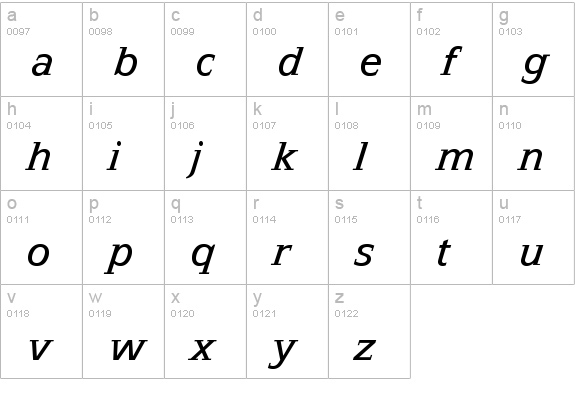
Epikur BQ Italic is a distinctive, italic variant in the Epikur typeface family \xE2\x80\x94 well suited to design and typography projects.
Epikur BQ Italic font exudes elegance and sophistication with its sleek and stylish design. The italicized letters add a touch of modernity and flair, making it perfect for adding a touch of sophistication to any design project. With its clean lines and graceful curves, this font is a versatile choice for a wide range of applications, from branding to editorial design. And the best part? Epikur BQ Italic font is available for free download at FontsMarket.com. So go ahead and elevate your designs with this exquisite typeface without breaking the bank. Whether you're creating a logo, poster, or website, Epikur BQ Italic font is sure to make a lasting impression. Download it now and see for yourself the beauty and versatility of this stunning font.